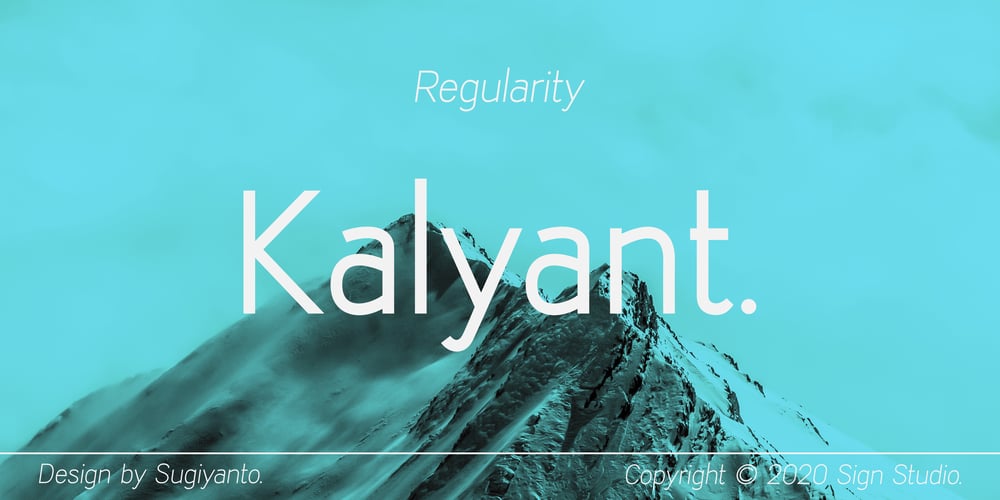
Kalyant Font Family was designed by Sugi Yanto and published by Sign Studio. Kalyant contains 6 styles and family package options. Kalyant prioritizes the element of readability in every use. A very formal and elegant form will be very good for offices. Character sets that support multiple languages will be very useful for communication documents between countries. Kalyant will add other styles in the next update.